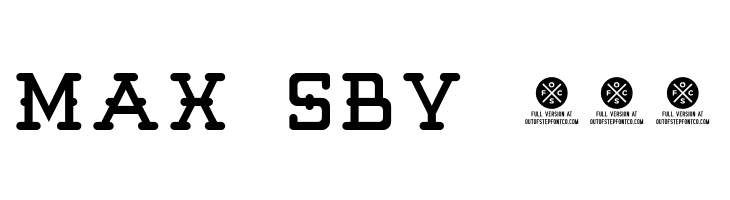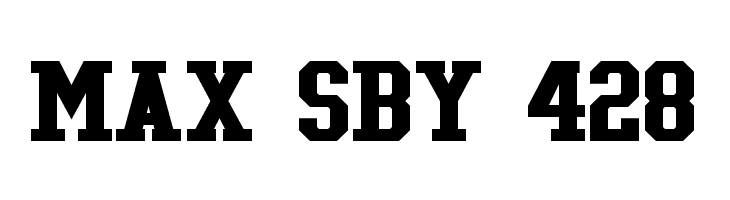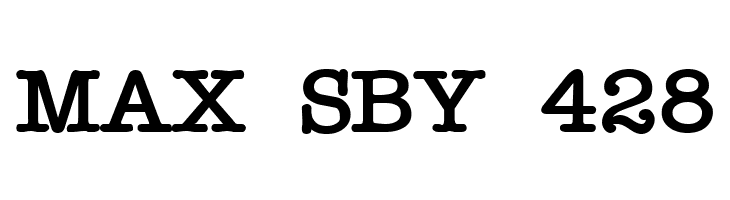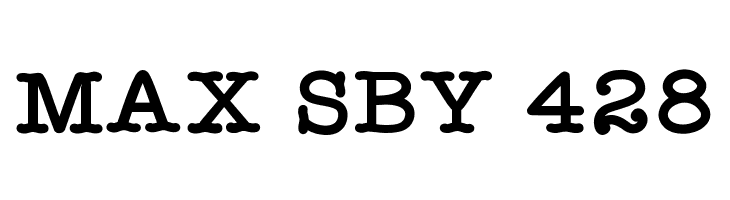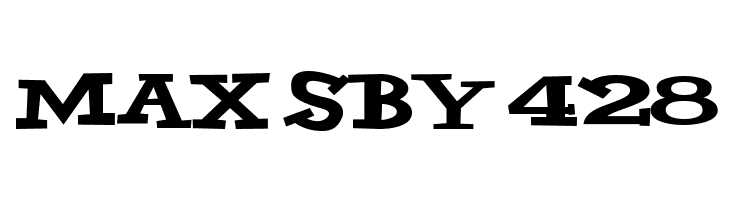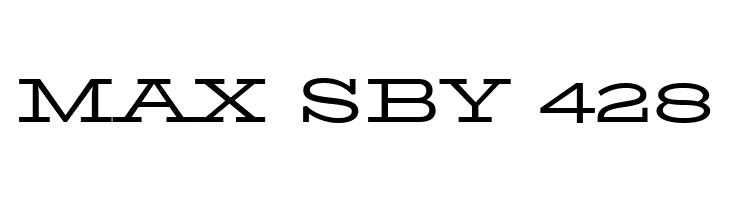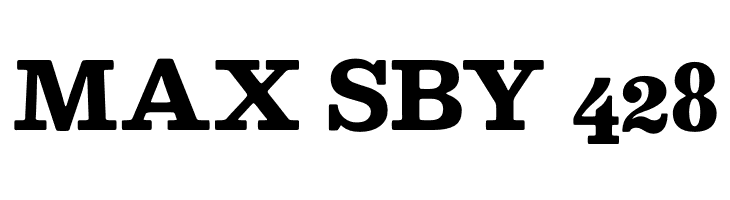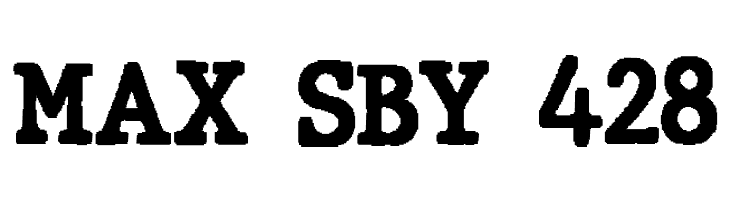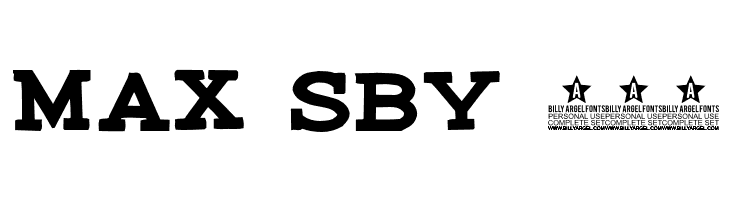
A bold, italic slab serif font with high contrast and a modern vintage style.
A bold, slab serif font with a Western, rugged style.
A bold, Western-inspired slab serif font with high contrast and strong serifs.
A bold, geometric slab serif font with Western and Eastern influences.
( Annie de la Vega )
A bold slab serif font with strong, block-like serifs and a robust appearance.
( Chequered Ink - chequered.ink/ )
A bold slab serif font with strong, block-like serifs and high contrast.
( Chequered Ink - chequered.ink/ )
A bold slab serif font with strong, block-like serifs and high contrast.
( Daniel Plant - www.fontmonster.org )
A bold, slab serif font with high contrast and vintage appeal.
( Eutypoce - www.eutypoce.com/ )
A bold slab serif font with strong, block-like serifs and consistent stroke width.
( Font Monger - www.fontmonger.com )
A distressed, slab serif font with a rugged, worn appearance.
( Font Monkey - www.fontmonkey.com )
A bold slab serif font with strong lines and prominent serifs.
( Fontomen - www.algonet.se/~j-j/ )
A bold slab serif font with strong, geometric characters and block-like serifs.
( Hank Gillette )
A bold, theatrical slab serif font with a vintage flair.
( Out Of Step Font Company - outofstepfontco.com )
A bold, vintage slab serif font with a strong, nostalgic appeal.
( Out Of Step Font Company - outofstepfontco.com )
A bold, industrial slab serif font with a strong, structured appearance.
( Pixel Sagas - www.pixelsagas.com )
A bold, slab serif font with strong geometric shapes and block-like serifs.
( Roger White - web.archive.org/web/20120416090521/www.rogersfonts.org.uk/ )
A bold, monospaced font with a classic typewriter style and slab serifs.
( Shara Weber - sharasfonts.com )
A bold, playful slab serif font with rounded characters and a whimsical style.
( Shara Weber - sharasfonts.com )
A bold slab serif font with strong, block-like serifs and consistent stroke width.
A bold, modern slab serif font with expanded width and strong presence.
A bold slab serif font with strong, block-like serifs and consistent stroke weight.
A bold, vintage typewriter-style font with slab serifs and strong, uniform strokes.
A bold, high-contrast slab serif font with a strong, authoritative presence.
A bold, slab serif font with a vintage yet modern appeal.
A bold, vintage-style slab serif font with strong, uniform characters.
A bold, geometric slab serif font with a modern retro aesthetic.
A bold, distressed slab serif font with a vintage, rugged appearance.
A bold, textured slab serif font with a vintage, distressed look.
A bold, slab serif font with a vintage Western style.
A bold slab serif font with strong, block-like serifs and a commanding presence.
( Fonts by Typographer Mediengestaltung - Personal-use only. For commercial use please contact owner. )
A bold, slab serif font with a vintage Western style.
( Fonts by Typographer Mediengestaltung - Personal-use only. For commercial use please contact owner. )
A bold slab serif font with strong, block-like serifs and a modern yet classic appeal.
A bold slab serif font with high contrast and a vintage-modern appeal.
A bold slab serif font with strong, block-like serifs and a modern yet classic style.